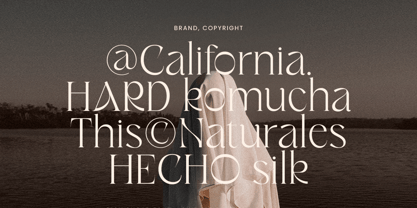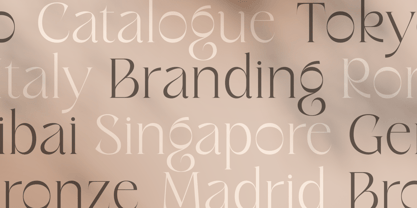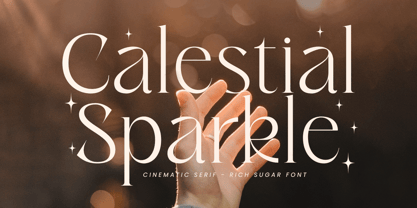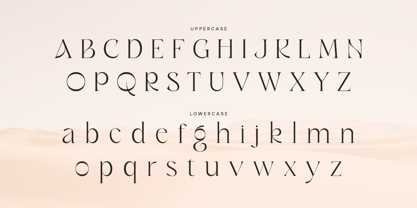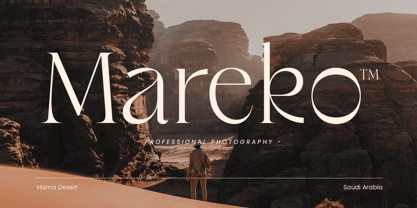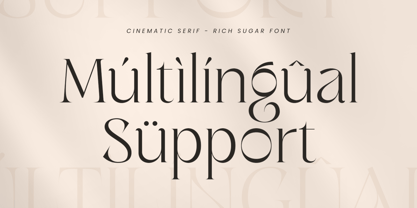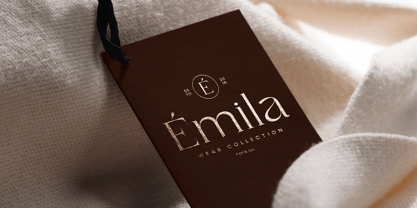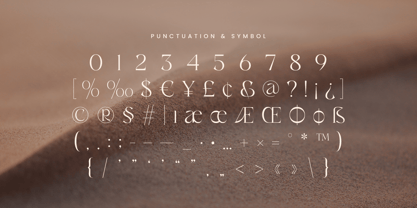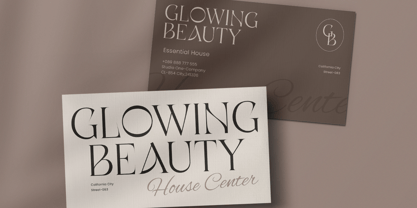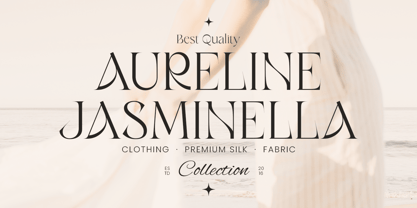
Rich Sugar SS
by Sensatype Studio
The Rich Sugar SS Font Family was designed by Zamroni Hamzah and published by Sensatype Studio. Rich Sugar SS contains 2 styles and family package options. More about this family
Rich Sugar SS is a luxurious cinematic font designed to elevate your high-end design projects with elegance and sophistication. Inspired by the opulence of luxury brands and the captivating allure of cinema, Rich Sugar SS combines modern aesthetics with timeless class. This font is perfect for creating stunning logos, refined branding materials, and stylish designs that exude luxury.
The Story Behind Rich Sugar SS:
Rich Sugar SS was crafted with the idea of combining the richness of luxury design with the captivating appeal of cinematic style. The font draws inspiration from the elegance of premium brands and the visual grandeur of classic films. Whether you're designing a high-end logo, crafting branding for a premium product, or creating cinematic posters, Rich Sugar SS delivers a perfect blend of style and grace.
Rich Sugar SS Font Features:
• Elegant Design: Perfect for luxury branding, cinematic posters, and high-end projects.
• Versatile Usage: Ideal for logos, branding, headlines, and stylish designs.
• High Legibility: Ensures your message is communicated effectively with clear and sharp lettering.
• Cinematic Appeal: Combines modern aesthetics with a vintage touch to create a unique and memorable look.
• Inspirational Previews: Includes sample designs to spark your creativity and show the font's potential.
Elevate your design projects with Rich Sugar SS and bring a touch of luxurious cinematic style to your work.